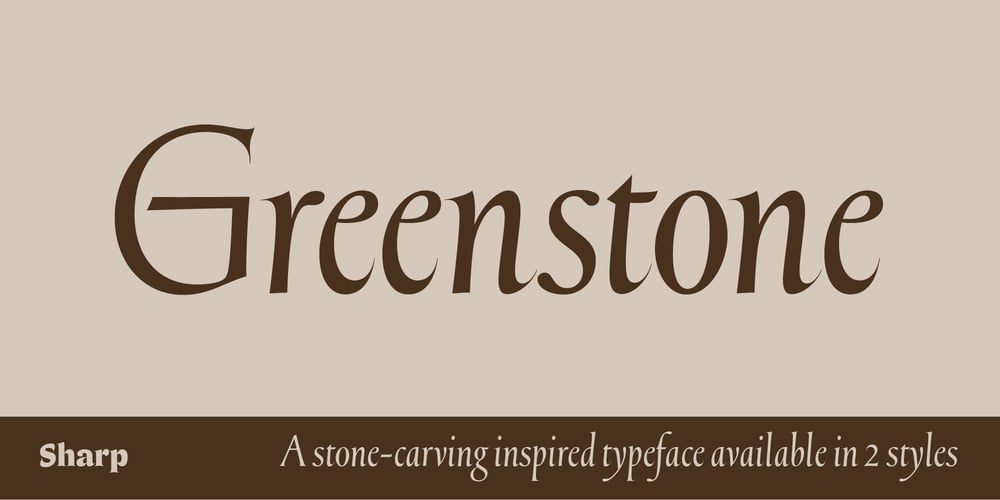
Greenstone Font Family was designed by Sharp Type and published by Sharp Type. Greenstone contains 2 styles and family package options. Greenstone is a singular display typeface that explores the relationship between ink-brushed and stone-carved lettering, resulting in a serif that feels simultaneously classic in its erudition, contemporary in its construction, and curiously out of time despite it all. Designer Connor Davenport honed in on the expressive vernacular of Oscar Ogg’s mid-century book jacket lettering and the sober precision of American & British stone carving of the 19th and 20th centuries. Greenstone is a digital homage to the ancient and sacred tradition of lettering that embodies the sober drama of a monumental display face through its fine-tuned construction and unexpected details, making it an ideal typographic choice for album cover art, magazine spreads, and book titles.